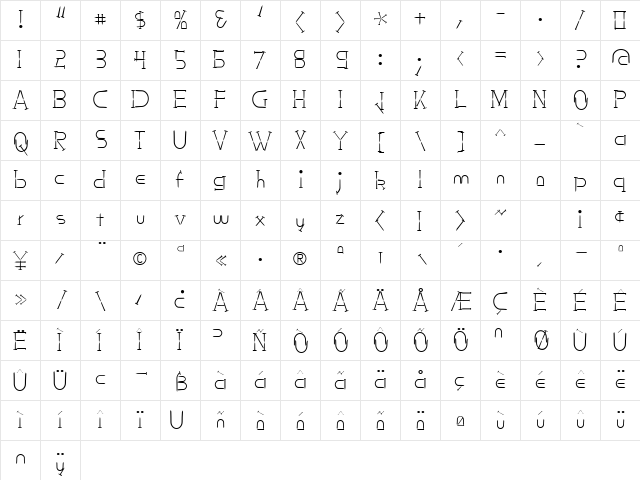
Complete NailsNStaples Regular glyph index. Displaying only characters natively supported by NailsNStaples Regular font.
NailsNStaples is a composed and adaptable typeface that performs quietly and consistently across a wide range of design contexts.
Pro Tip: Use NailsNStaples in both headline and body roles to test its range before committing to a single application.